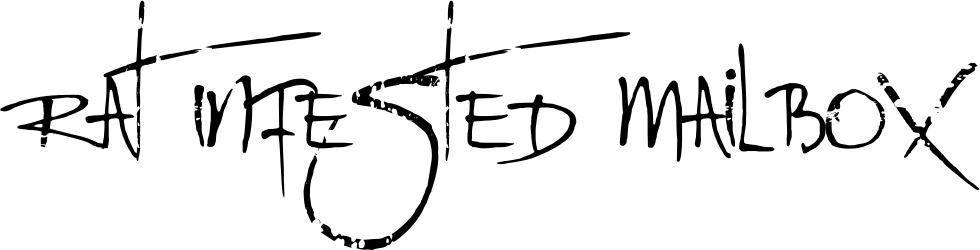
Rat Infested Mailbox Font
Looking for a handwriting font? Lucky for you, here’s Rat Infested Mailbox, a handwriting font that looks super realistic. It comes with thin, light, casual characters giving off informal vibes. There is one version of letters which is a mixture of both uppercase and lowercase. Rat Infested Mailbox would work best in cartoons, comic books, signs, and anywhere when you’re after natural, casual vibes.